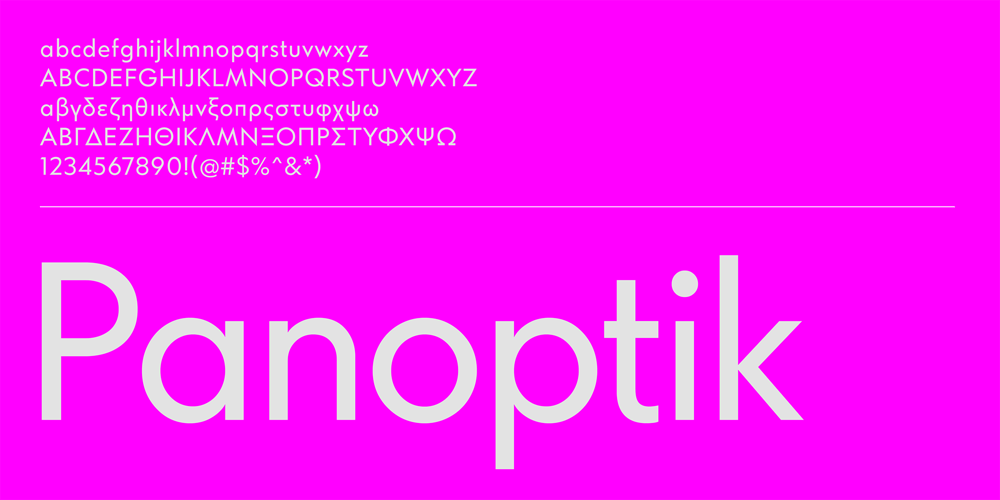
CF Panoptik
CF Panoptik font
CF Panoptik Font Family was designed by Panos Haratzopoulos and published by Fonts.GR. CF Panoptik contains 12 styles and family package options. CF Panoptik is an evolution of the popular Futura, somewhat less geometric, yet equally clean and quite proportionate. Originally designed as a corporate font for a Bank in Greece and later enriched with more weights released to the market. Supports Western and Extended Latin, Greek Μonotonic & Polytonic.Available also in Variable filet.